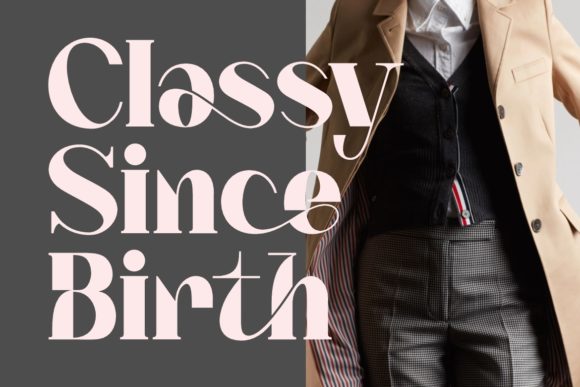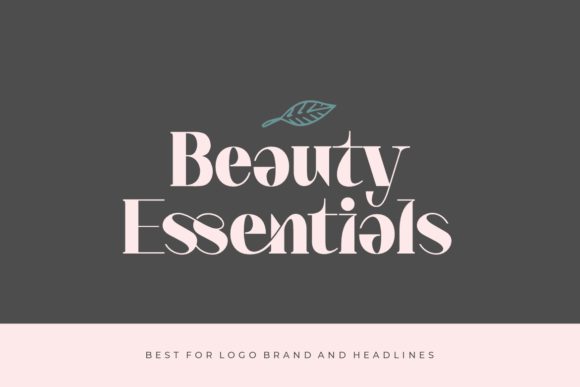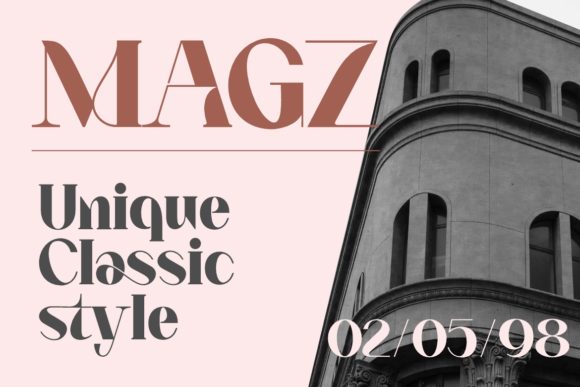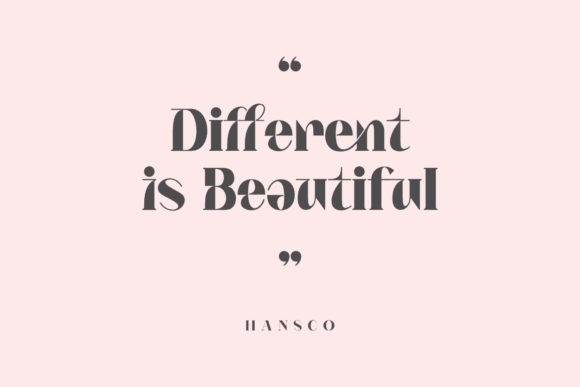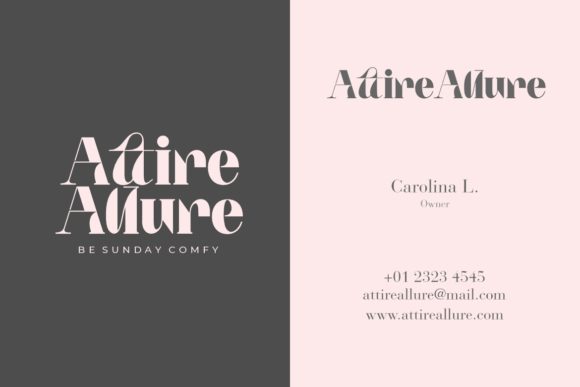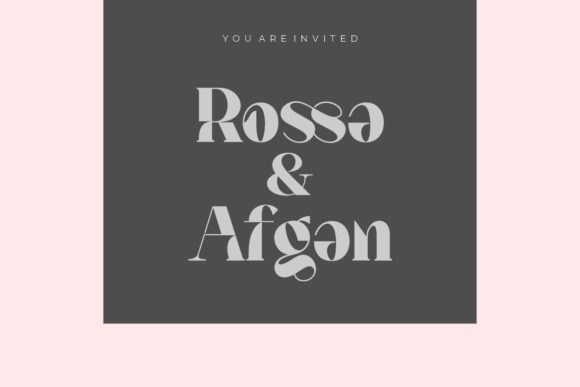
Introduction to Notted Font
Notted is a bold and elegant serif font.
This original look will appeal to a wide range of crafty ideas, from letterheads and titles, to stationery .